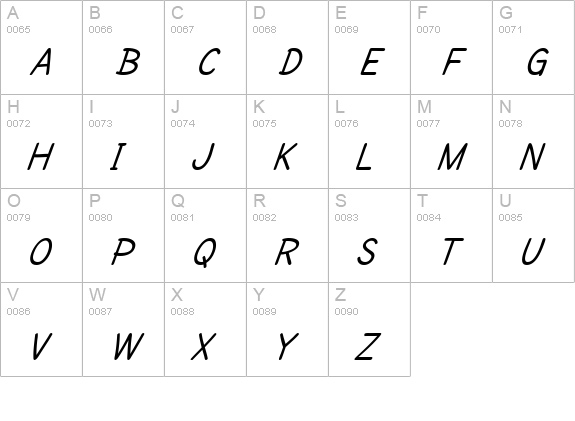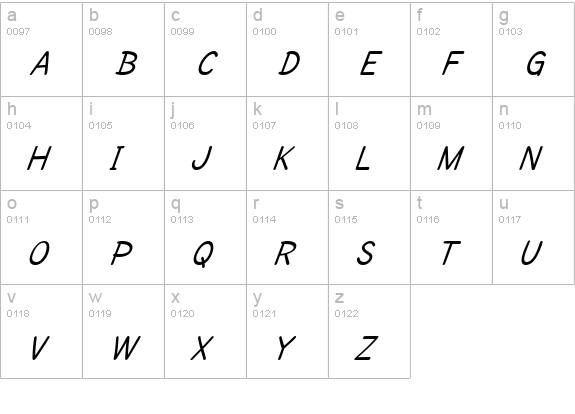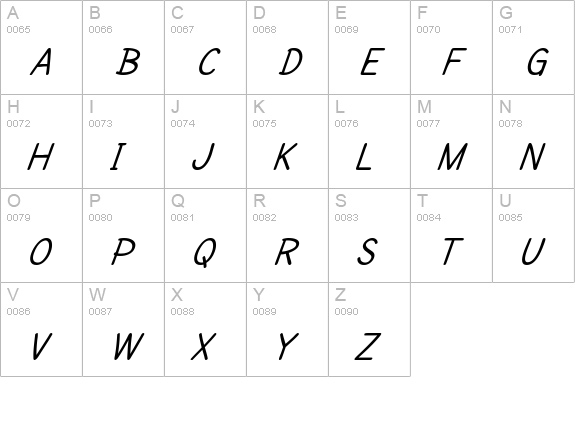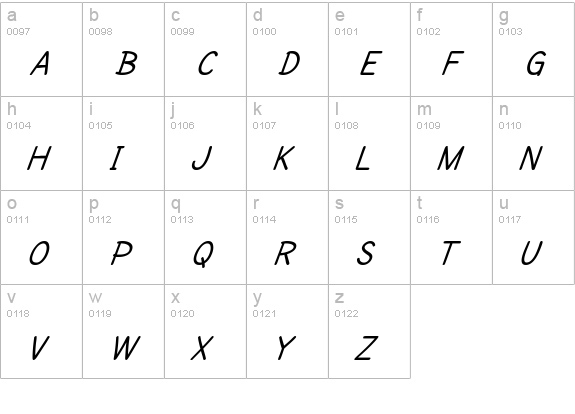
SF Cartoonist Hand SC Italic Font Details
SF Cartoonist Hand SC Italic is a distinctive, italic variant in the SF typeface family \xE2\x80\x94 well suited to design and typography projects.
SF Cartoonist Hand SC Italic is a delightful and playful font that brings a touch of whimsy to any project. With its slightly slanted and quirky letterforms, this font is perfect for adding a fun and lighthearted feel to your designs. The italicized style of SF Cartoonist Hand SC adds a sense of movement and energy, making it ideal for capturing the essence of cartoons and comic books. Whether you're creating a children's book, designing a poster, or crafting a logo, this font will bring your creations to life with its charming and animated appearance. One of the best things about SF Cartoonist Hand SC Italic is that it is free to download at FontsMarket.com. This means that you can bring a touch of whimsy to your designs without breaking the bank. Simply visit FontsMarket.com, search for SF Cartoonist Hand SC Italic, and start using this delightful font in your projects today. So why wait? Download SF Cartoonist Hand SC Italic for free and let your creativity soar. Whether you're a professional designer or a hobbyist, this font is sure to add a playful and lively element to your work. Don't miss out on the opportunity to enhance your designs with this charming and freely available font. Get it now and let your imagination run wild!